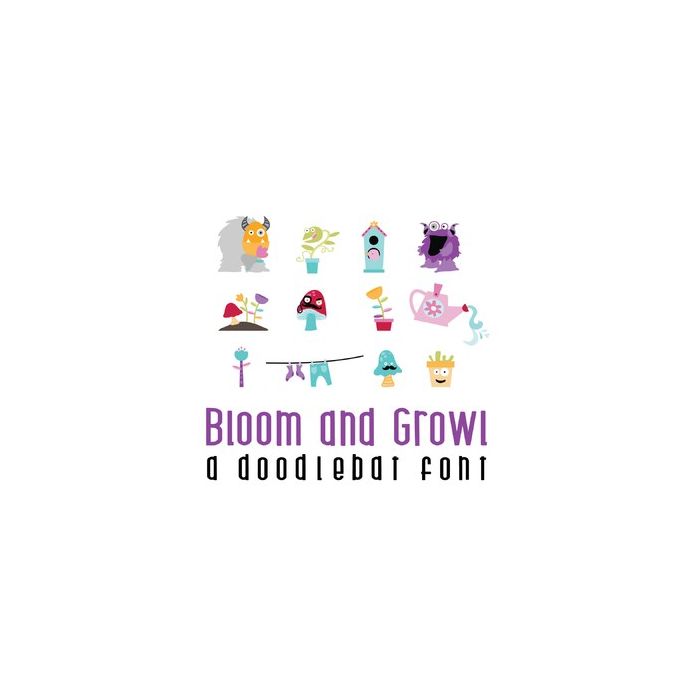
This adorable full color doodlebat font features the cutest spring set, monster inspired gardening with adorable monster plants, pots, flowers and monsters themselves. Perfect for cards, crafts, gifts, decor, scrap book pages, planner stickers and more!